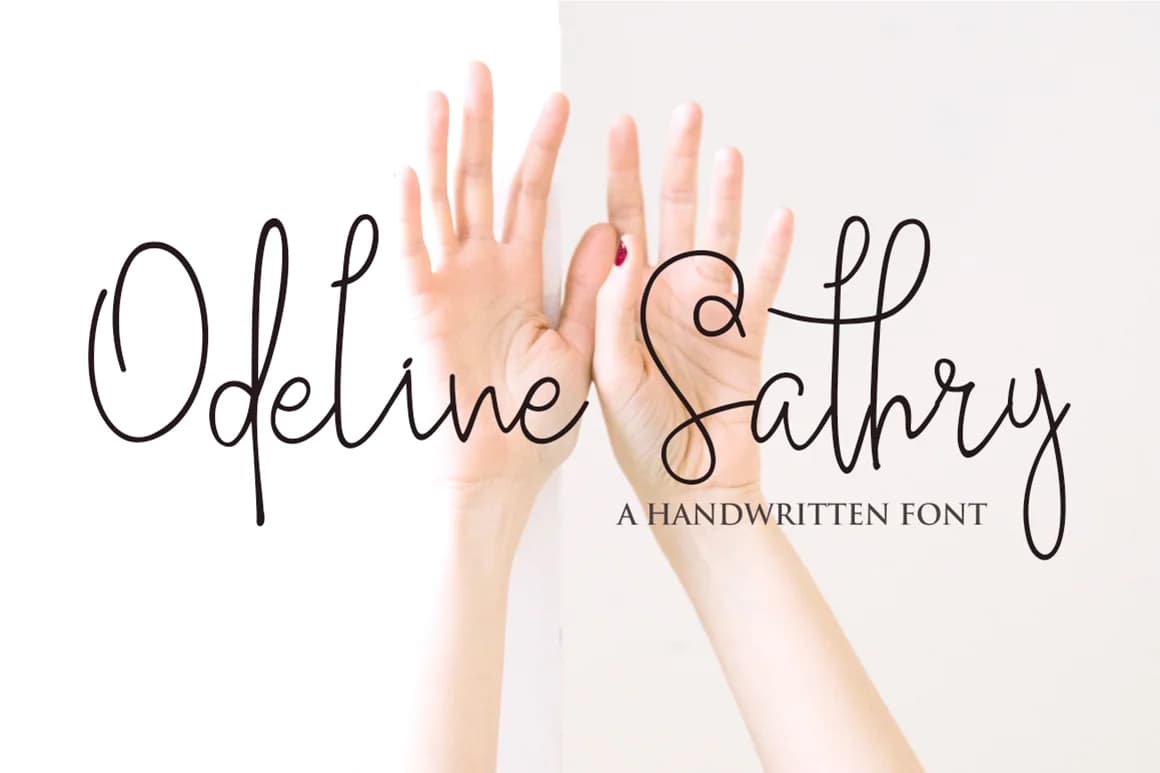
Odeline Sathry by Lettersams is a monoline handwritten script that channels contemporary elegance through clean, flowing letterforms. This signature typeface strikes a balance between casual authenticity and refined sophistication, making it ideal for designs that want personality without pretense. The consistent stroke weight characteristic of monoline design ensures excellent readability whether displayed at large scale or integrated into smaller compositions, providing flexibility across diverse applications. This font excels in fashion editorials, luxury cosmetics packaging, and wedding invitation suites, spaces where refined simplicity communicates brand values more effectively than ornamental flourishes. It performs equally well on minimalist greeting cards, boutique skincare labels, and bespoke branding materials where aesthetic restraint speaks louder than decoration. In digital contexts, Odeline Sathry brings sophistication to social media templates, website headers, and digital advertising for lifestyle brands and independent makers seeking visual distinction. The monoline structure supports clean rendering across screen sizes. Beyond its visual appeal, the font's construction offers practical advantages across both screen and print workflows. Whether you're designing artisanal product packaging, creating eco-conscious label systems, developing curated social media aesthetics, or crafting minimalist branding suites, Odeline Sathry brings thoughtful character that resonates with discerning audiences. Find Odeline Sathry on Creative Fabrica and bring refined handwritten sophistication to your designs.
Odeline Sathry Font is a script font that shines as a display or heading face. Pair it with a clean sans-serif or serif font for body text β the contrast creates a clear hierarchy while the two styles stay balanced and easy to read.
Odeline Sathry Font
by Lettersams